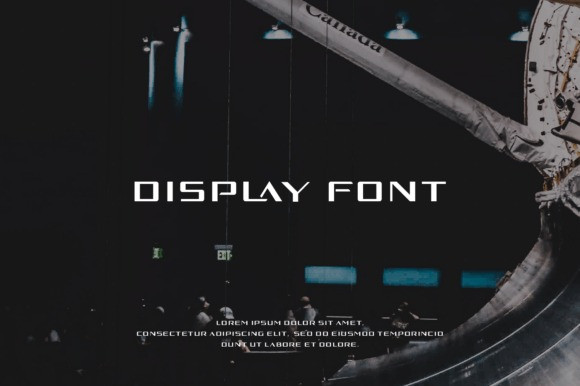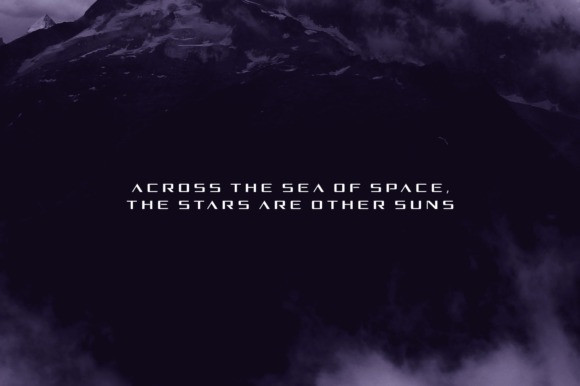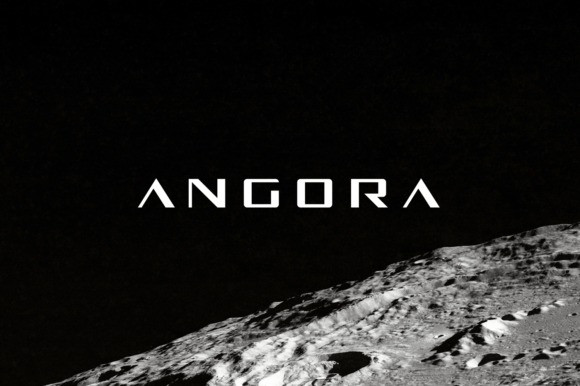
Angora Display Font
Angora Display Font is a bold and modern-looking, cool display font that can be easily paired with various font types. It is great for logos, branding projects, hi-tech brands, t-shirt designs, fashion brands, posters, banners, streetwear designs, or anything that requires an innovative feel.